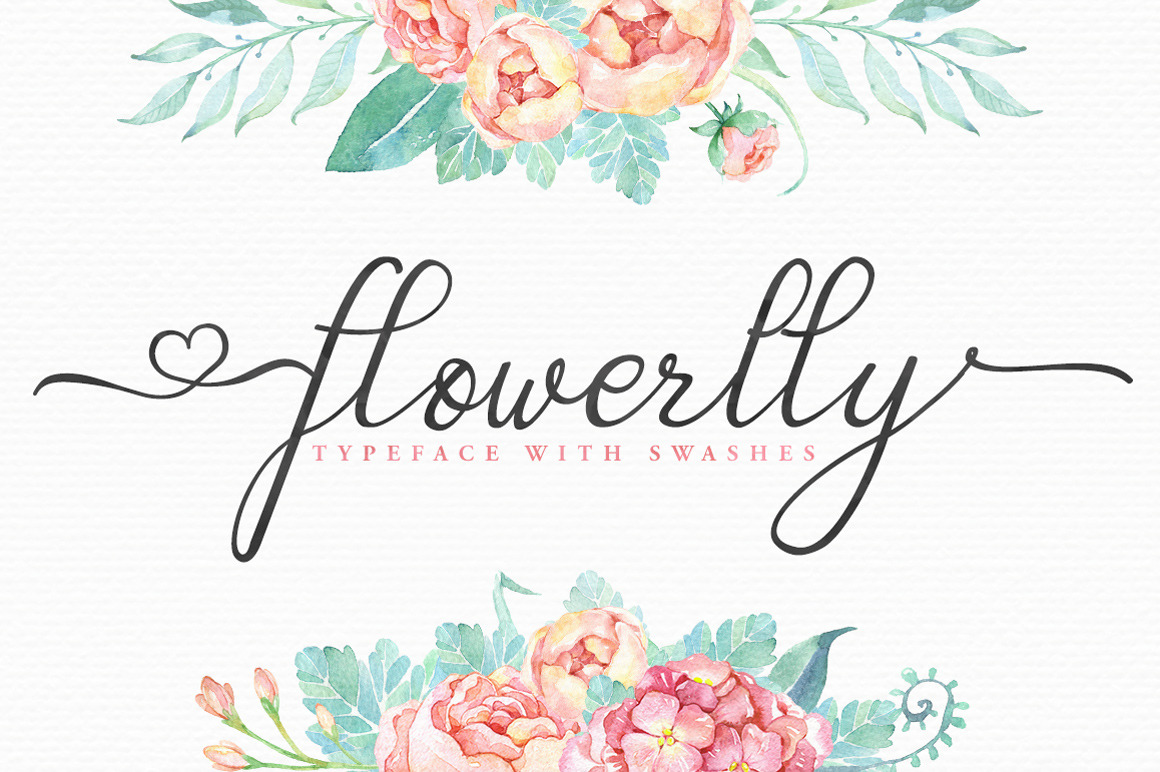
Flowerlly Typeface with Swashes
Flowerrly is a premium modern calligraphy connected font that is made for wedding invitations, envelope art and especially small creative businesses logos (like photographers, calligraphers, artists, handcrafted items creators, Etsy sellers...)
Flowerlly comes with 26 left and right flourish swatches Swatches are in separate font and therefore are very easy to use in any software (like MS Word). You don't need any advanced software with open type features to use those beautiful swashes!
Open type features (in software like Illustrator, Indesign or Photoshop) come handy when you want to use ligatures though.
Flowerlly has ligatures like ff, th, tl, fl, mn, aa, bb, cc, dd, ee... Basically when there are 2 of the same letters next to each other, your software uses a ligature so those 2 letters looks not exactly the same which gives your text more realistic "hand written" look.
26 left swashes + 26 right swashes = 676 unique combinations!